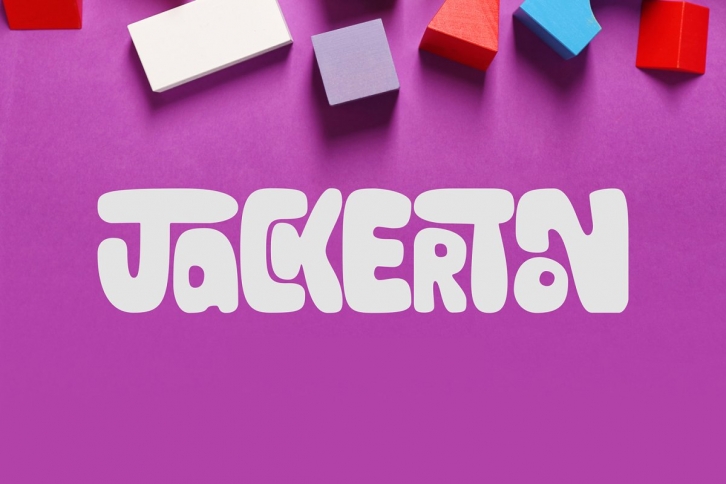
Jackerton is a playful, child-like typeface inspired by my father's doodles. Every word is a puzzle with pieces changing and shifting as you type. This is my first typeface, so I plan to provide updates on a regular basis.